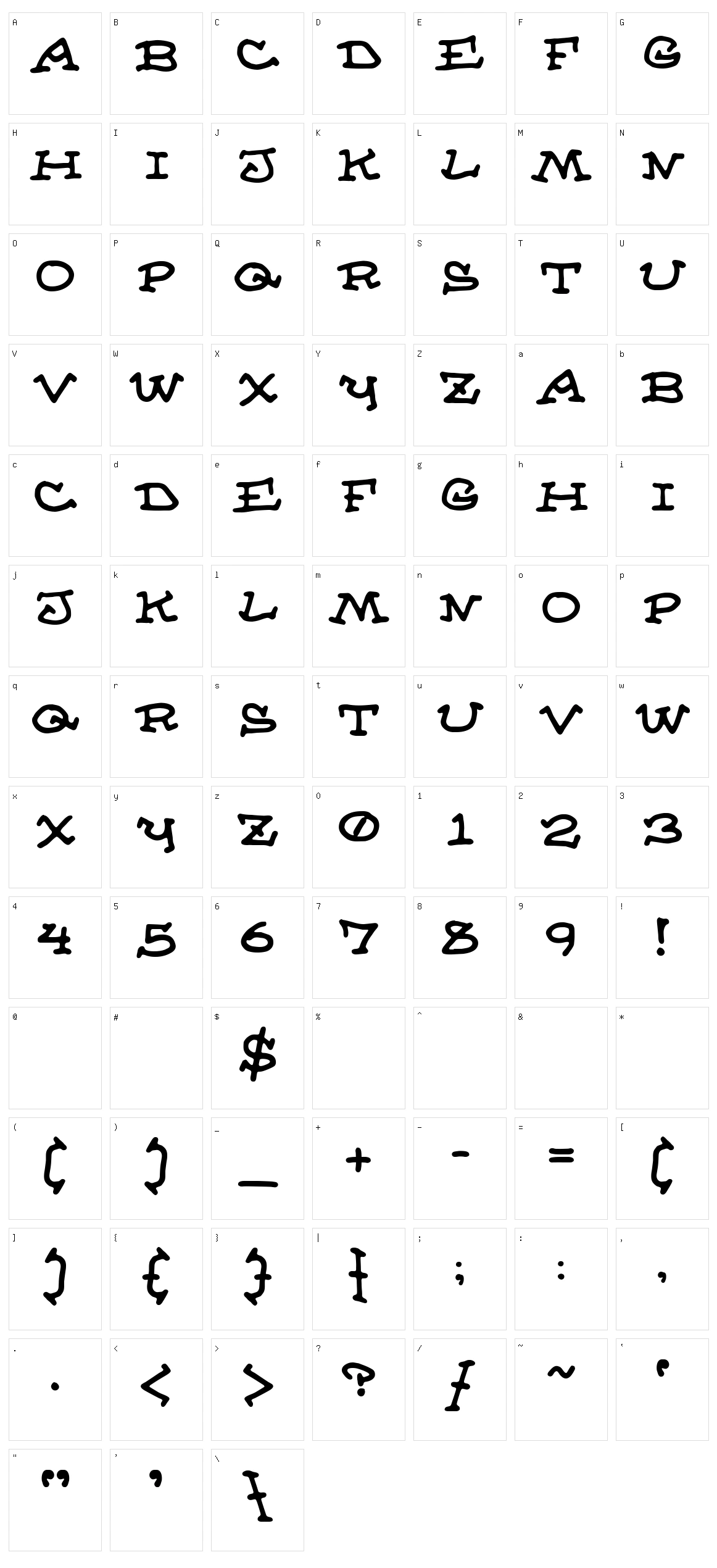
ALMANAC OF THE APPRENTICE
A TrueType Font by S. John Ross
Often as not, the fonts I post are those Ive built for a specific graphics project, and thats the case with this one, ALMANAC OF THE APPRENTICE. The name is a simple-minded jest, a reference to the fact that this is a cruder, simpler, and more casual cousin of ATLAS OF THE MAGI. Almanac is also built of a heavier line-weight, and to achieve the effects I wanted I doodled the original sample much smaller than I did its more formal relative. This isnt quite a complete keyboard set; its an all-caps display set with select punctuation and a few glyphs duplicated as placeholders (the brackets are identical to the parentheses, for example, but the curly-brackets are at least a variant of them). At any rate, its friendly and fun. Enjoy!